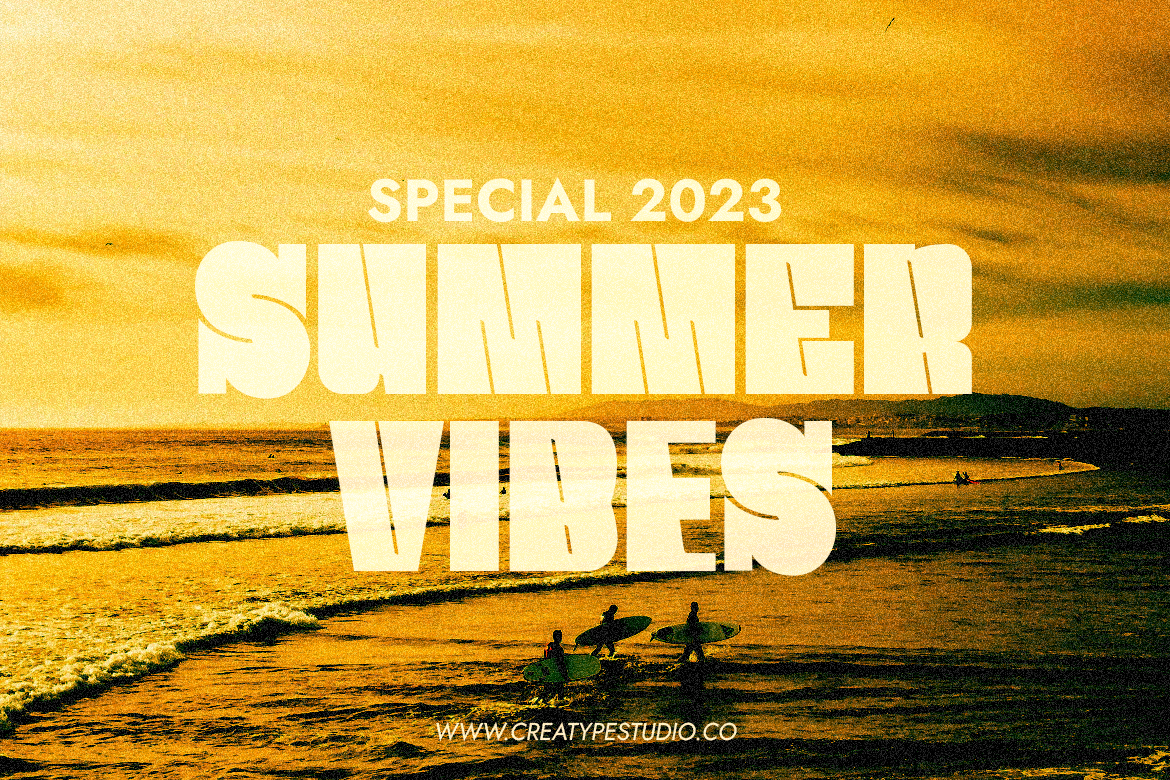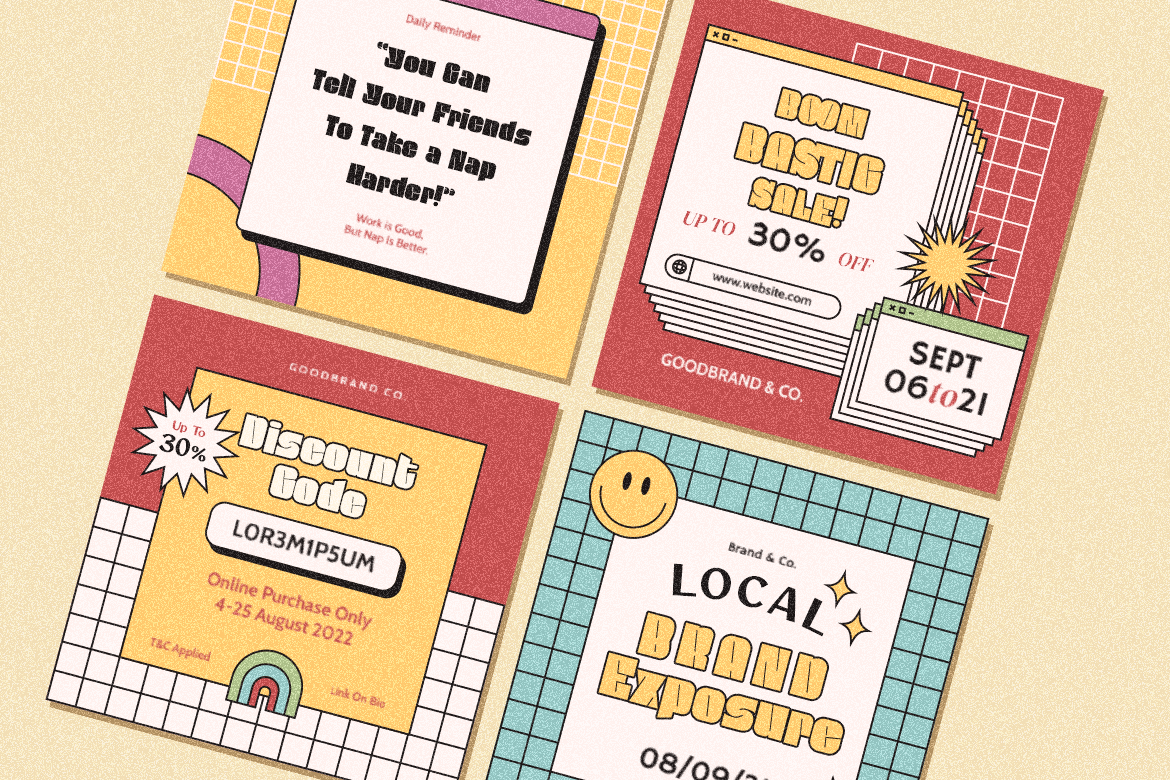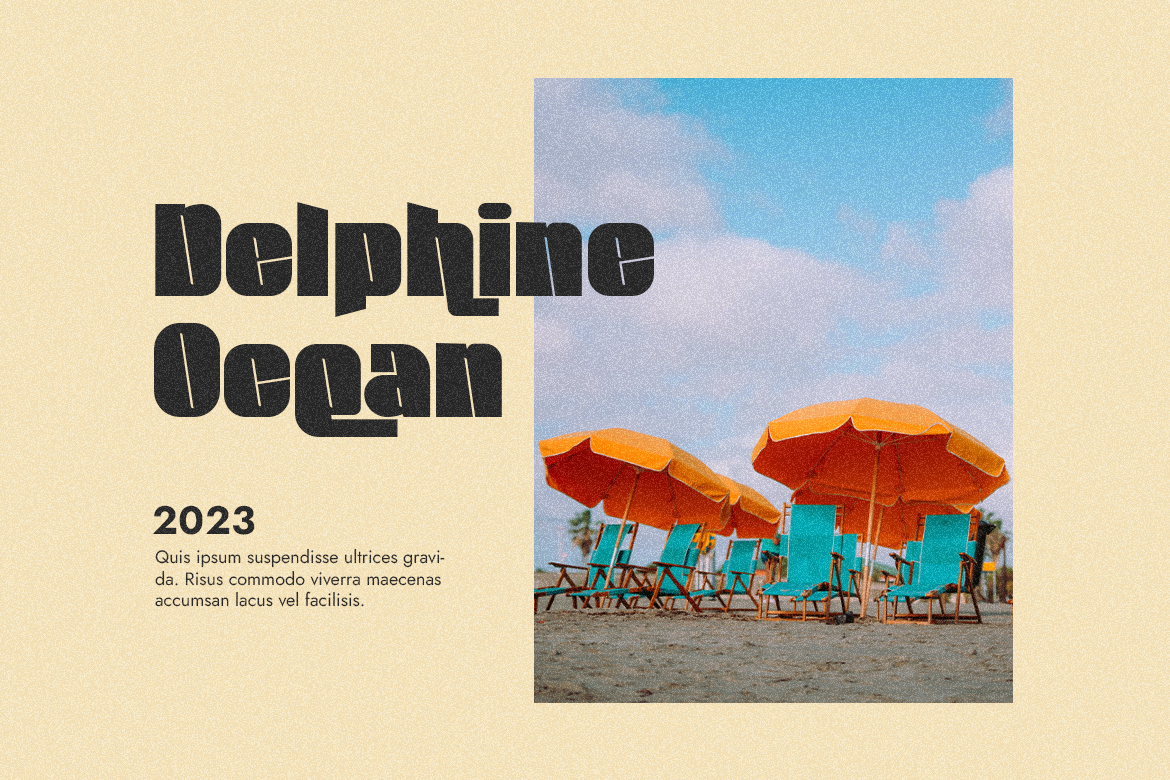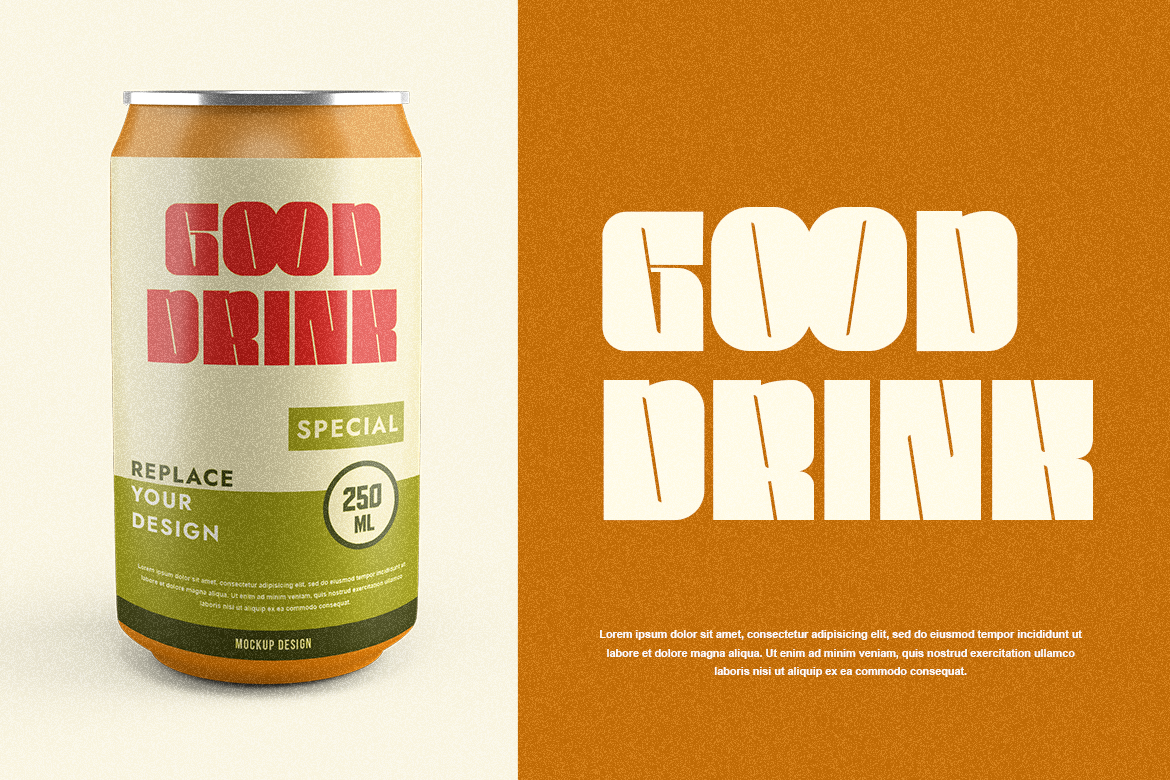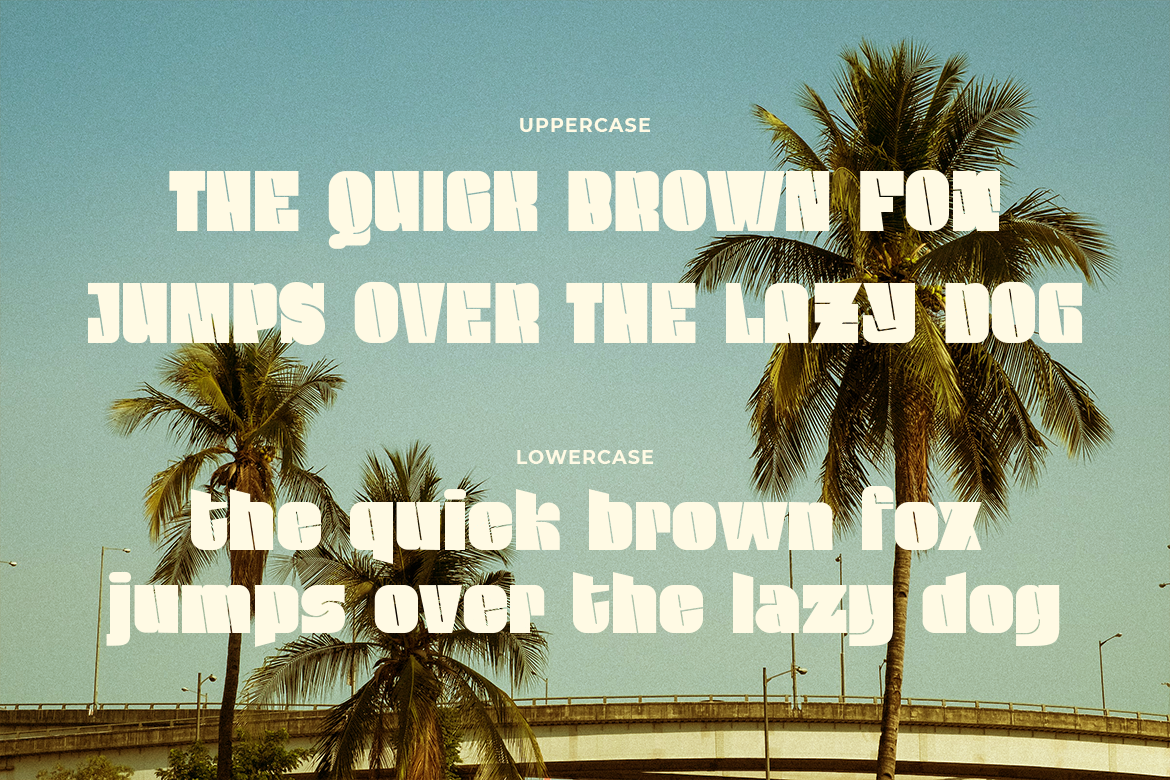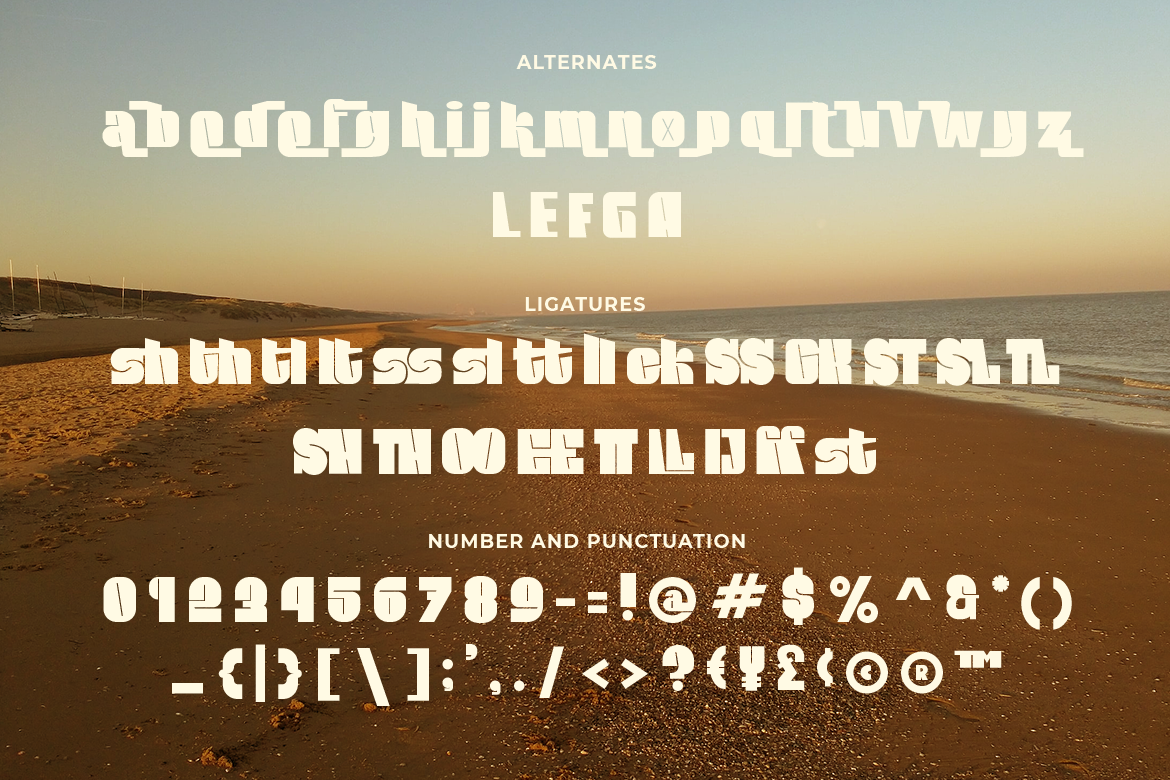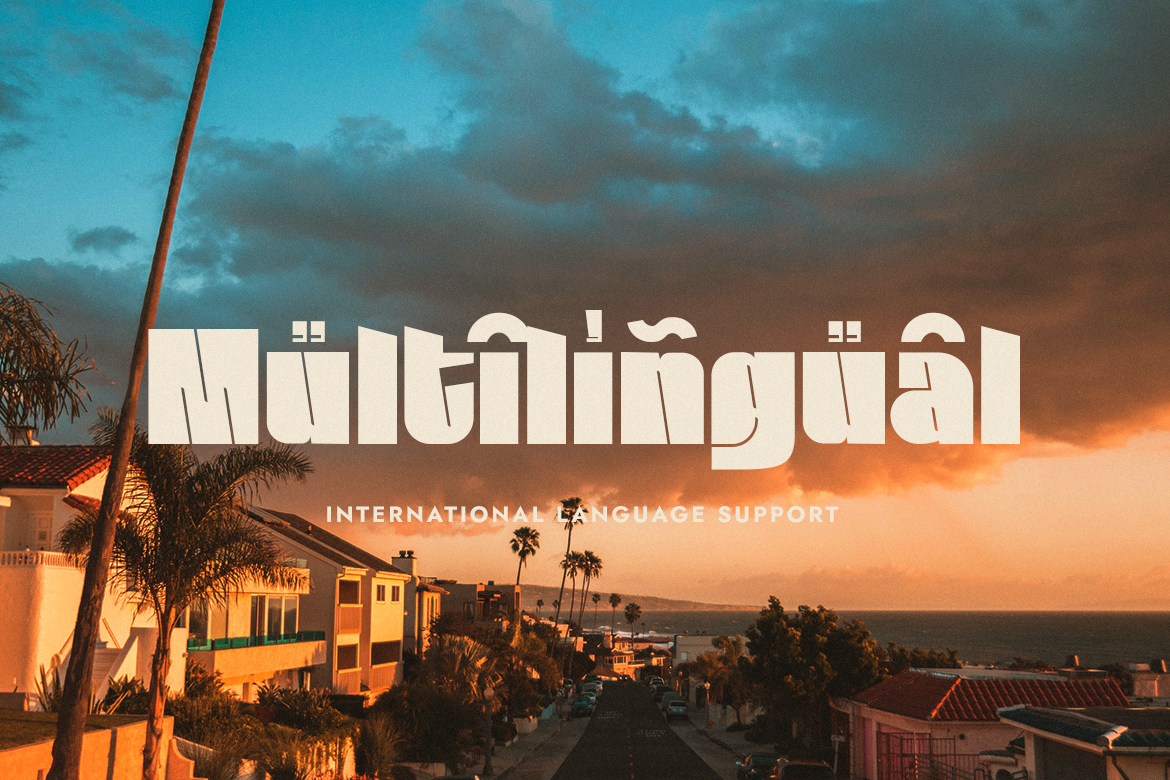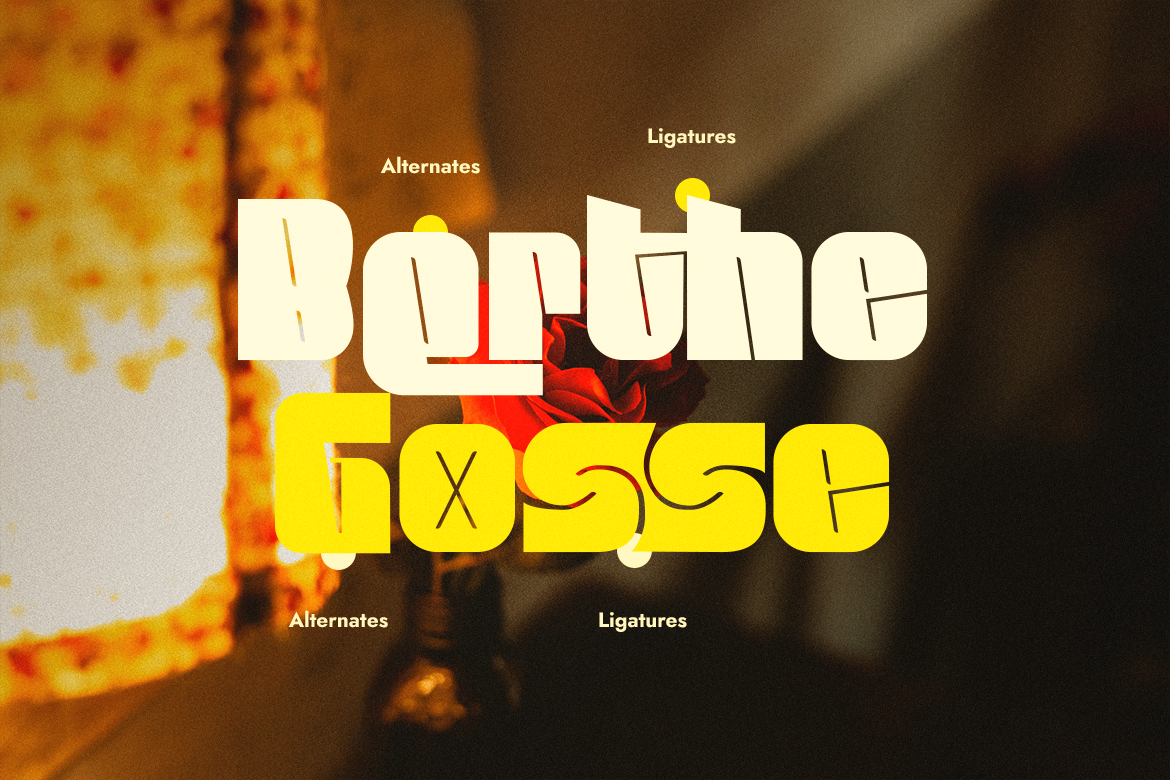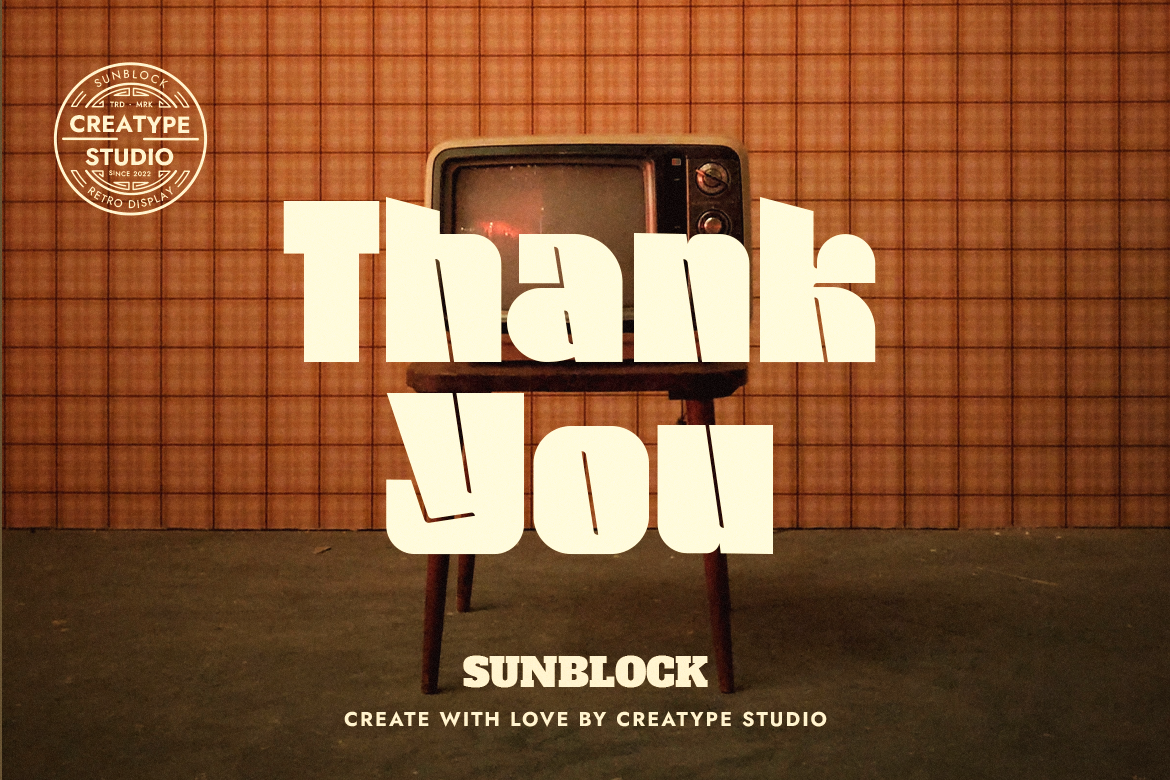
Sunblock Display Bold
Sunblock, the Display Bold typeface, is full of groovy and retro power. Level up your projects with Sunblock.
Sunblock is perfect for branding projects, logo, wedding designs, social media posts, advertisements, product packaging, product designs, label, photography, watermark, invitation, stationery and any projects that need handwriting taste.